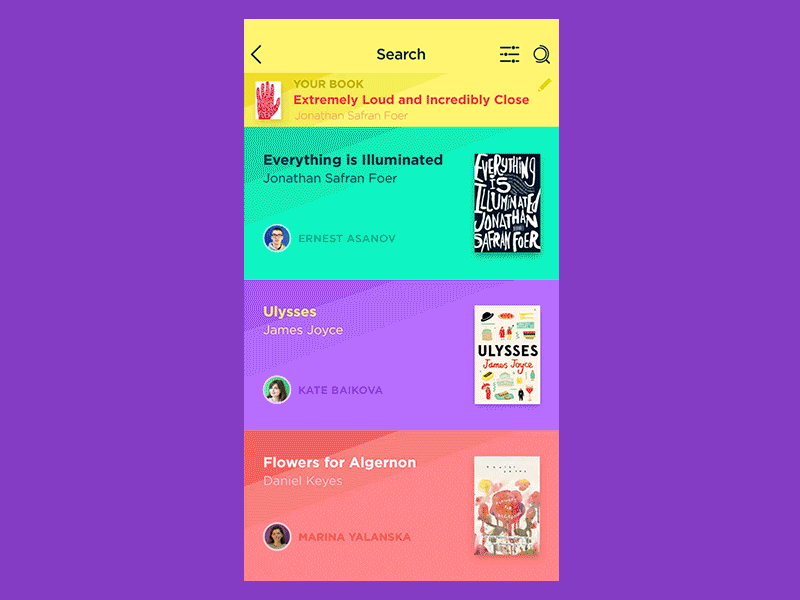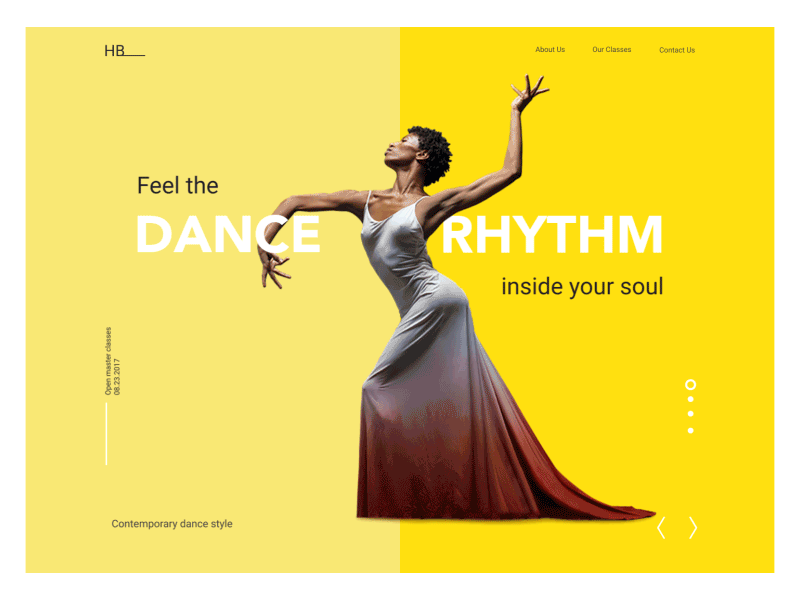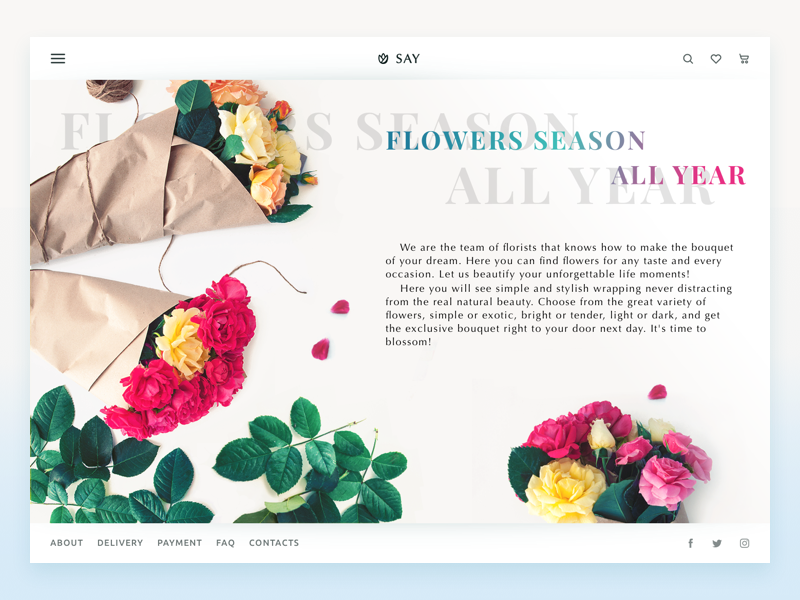
Typography is a way of communication with users. Visual performance and readability of copy in digital products have the great impact on user experience. One of guru graphic designers, Hoon Kim, once said: “Typographic design is visible as well as audible. If you have a great scenario, now it is time to cast good actors.” Typography can become a voice of design. Appropriate typography speaks for itself setting the right mood and transferring a certain message to users. Today’s article presents tips which will assist you in creating of effective typography.
Typographic hierarchy makes things work
To create a design pleasant for users’ perception, all its elements should be well organized and clear to navigate. Designers set a proper structure by establishing a visual hierarchy. It organizes all the visual elements so that users could easily perceive content.
Visual hierarchy can be divided into different parts. One of them related only to the copy elements is called typographic hierarchy. It aims at organizing copy content by dividing it into various types such as headings, subheadings, body copy, captions and others. The differences between the types of copy are set by regulation of family, sizes, width, and colors of fonts.
Clear typographic hierarchy makes text legible and easy to scan. Moreover, it’s simple to highlight key parts of the text to draw users’ attention and hitch them to the expected actions.
Consider context and audience
When it comes to the choice of fonts, an essential thing to consider is a context of a copy and a potential audience. Each font brings its own mood to a layout. There are friendly, funny, serious, business, and many other fonts that will fit a certain design.
Before you choose a font, you need to learn your client’s goals as well as needs and preferences of a target audience. Visual performance of fonts influences the first impression users get from the product. If the kind of font doesn’t fit the mood which the product aims at, there can be a misunderstanding with the audience. For example, if a designer chooses a font which looks too fun and silly for a business website, users will hesitate if the company is trustworthy. Or, if a product is meant for youngsters, too formal fonts may seem boring.
Deep attention to mobile typography
Designers often do the experiments with typography to make a project original. However, when it comes to mobile UI design, typographers are literally short of space. Mobile screens are quite small which sets a new challenge for designers to cope with restrictions without loss of sense and functionality. Mobile typography requires deep attention to the details from an appropriate size of fonts to compelling tracking and line length.
Compared to web design, mobile typography is harder to reach a good legibility. The font size shouldn’t be too small because on tiny screens it will look like an illegible mess. Moreover, if the text is too big, it won’t fit the small screen too. In addition, designers need to care about the level of contrast since a screen with ambient light and high contrast can hurt users’ eyes.
Furthermore, a designer should think of the typography functionality. Smartphone UI includes clickable text parts and designers need to make sure users manage to use them. If these parts are too small, people can’t press it with a finger and it’s rather annoying.
Considering all the tiny details in mobile typography, designers can bring valuable products for users.
Minimalism can’t hurt
Sometimes, when designers aim at showing all the facets of a digital product, they try to use lots of various styles and fonts all in a single design. As a result, they get a design overloaded with unnecessary distracting details and lacking a proper mood.
Experts usually try to keep a number of fonts within two or three for the same layout. It allows making an essential contrast between copy elements along with saving the balance and right message of a design. Applying different styles (bold, italic) should also be minimal. They are good for emphasizing really important parts but the overuse of them can make the text look messy.
Also, copy content shouldn’t overwhelm users with the unnecessary information. Of course, it’s a writer’s job to create appropriate text still designers need to collaborate with them to make sure the text will fit a design.
Upper App
Text needs to breath
Legibility level highly relies on how much space there is between letters, words, and text lines. Tracking, kerning and leading are the processes of white space adjustment between the typographic elements. White space is the area between elements in a design composition.
A lack of white space may end in the bad legibility of copy content because it is difficult to distinguish words which are placed too tight to each other. Appropriate white space brings a visual relief to users’ eyes and allows going easily from one word to another, from one line to the next. However, try not to overuse it otherwise it can ruin text unity.